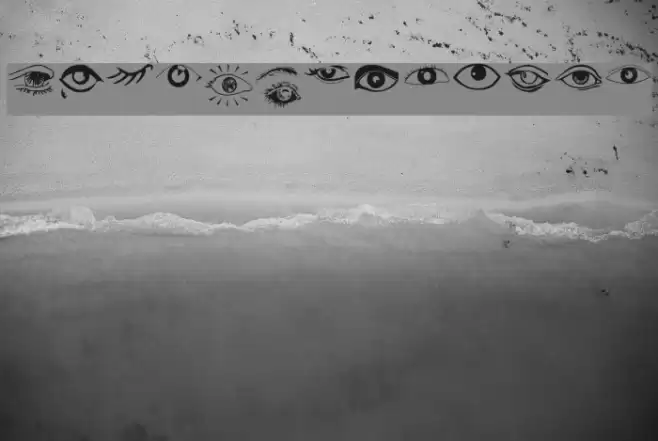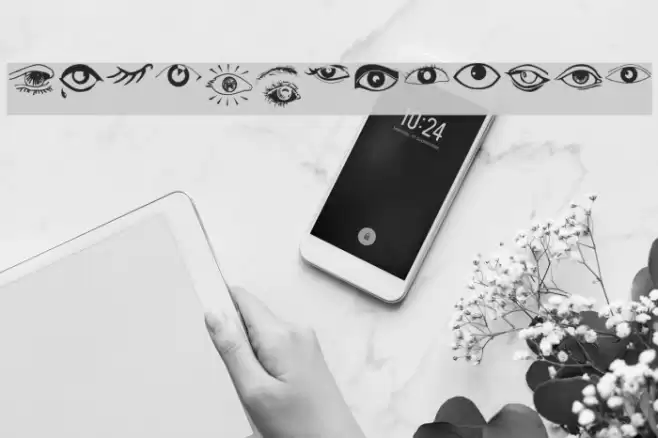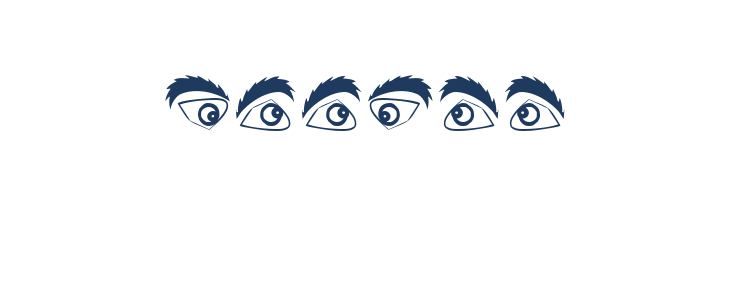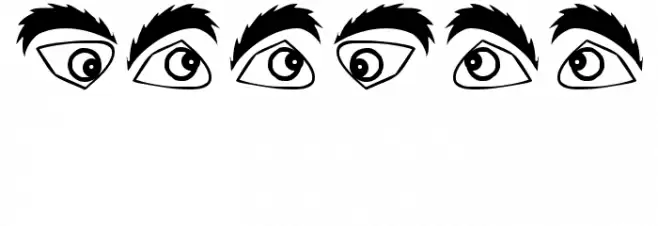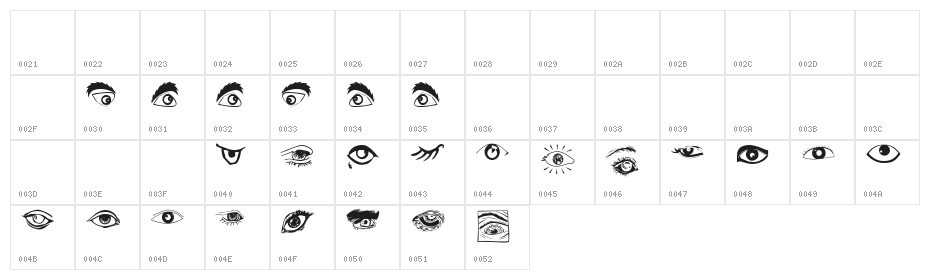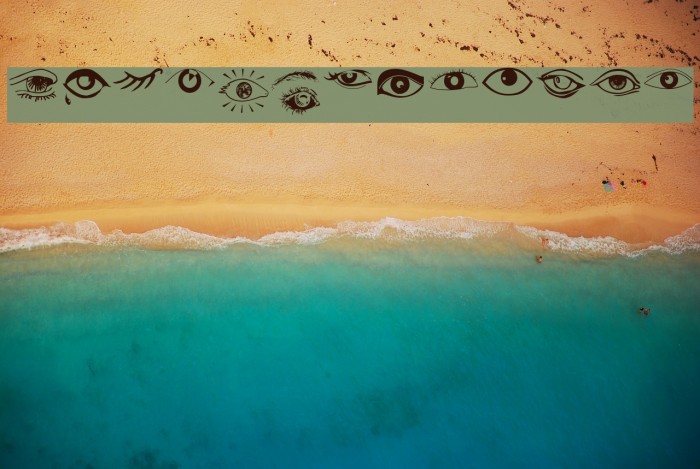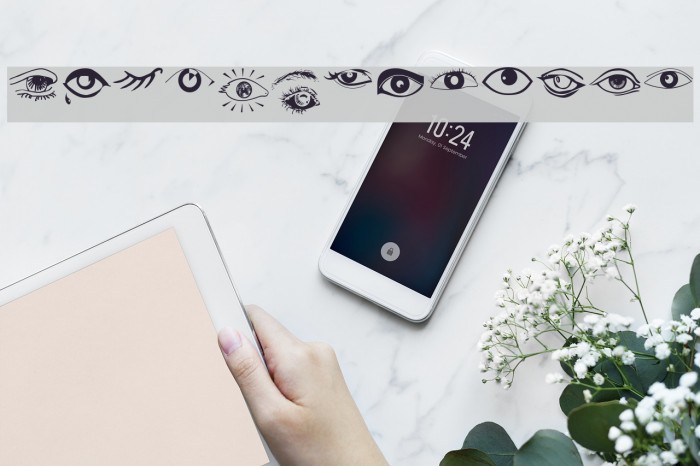
OtherEyes Font
OtherEyes Description
A highly decorative and illustrative font composed entirely of various stylized eye illustrations, each character represented by a unique eye drawing with different expressions and artistic styles. The glyphs are bold, detailed, and visually distinct, making the set more suitable for creative or thematic uses rather than standard text.
A decorative font made up of diverse eye illustrations for each character from Uncategorized fonts.
- Proposed Projects: Posters, album covers, Halloween or mystery-themed graphics, comics, branding for eye-related products, creative titles.
- Overall Style: Decorative, Playful, Artistic
- Use Case: Logos, Headlines, Posters, Themed graphics